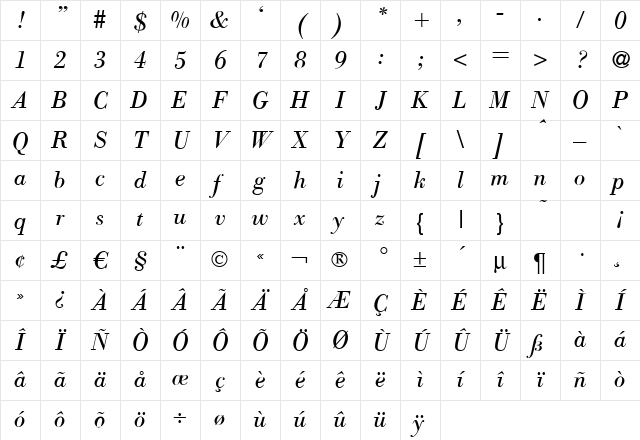
ModernBodoni Italic
Design Context for ModernBodoni
ModernBodoni is a composed and adaptable typeface that performs quietly and consistently across a wide range of design contexts. The slanted form adds forward momentum and visual energy.
Pro Tip: Use ModernBodoni for emphasis, pull quotes, and subheadings where its slanted energy can add rhythm to the layout.